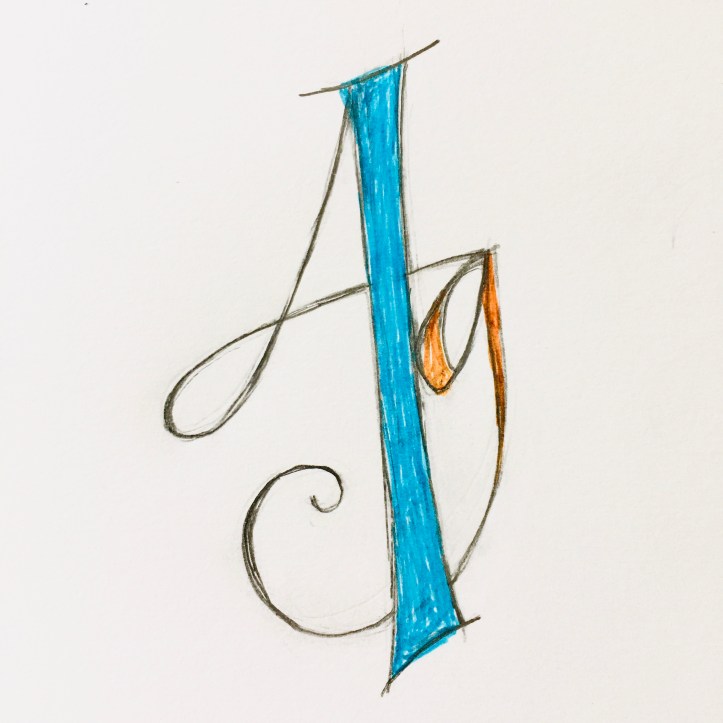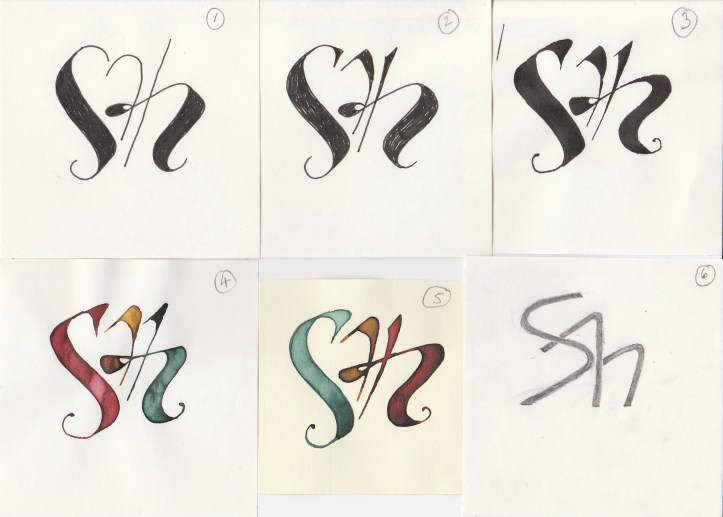
We had an enjoyable time at Julia Baxter’s online workshop creating our own monogram.
A Monogram is created using hand-written or drawn letters, where two or more interwoven letters, typically initials of a person, persons or perhaps a business are used as a design identity.
Today we looked at using a combination of calligraphic letters and worked them into a singular and harmonious design, using double pencils, fineliners and calligraphy pens.